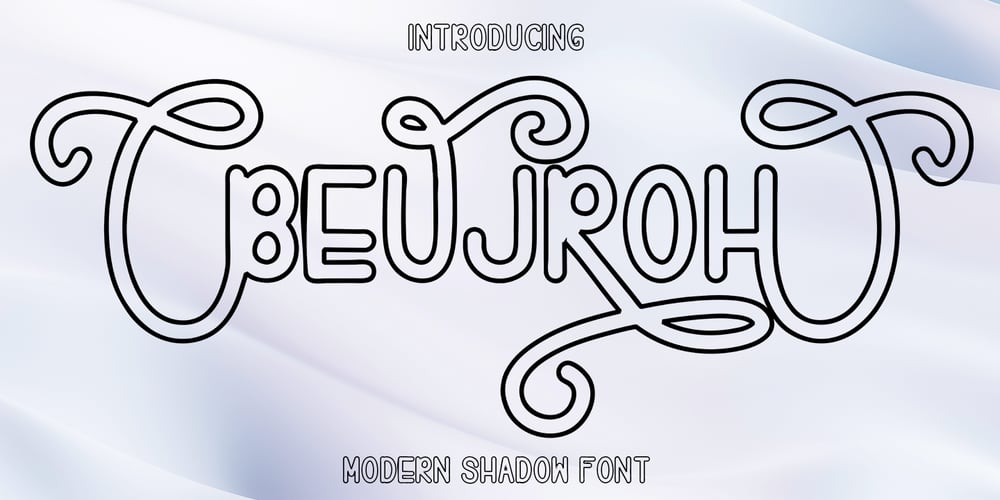
Beujroh
Beujroh font
Beujroh Font Family was designed by Teuku Saifullah and published by Shape Studio. Beujroh contains 1 styles and family package options. Beujroh your favorite projects. Fall in love with its completely different and timeless style and can use it to create wall designs, logos, wedding invitations, stationery, product labels, photography and much more.